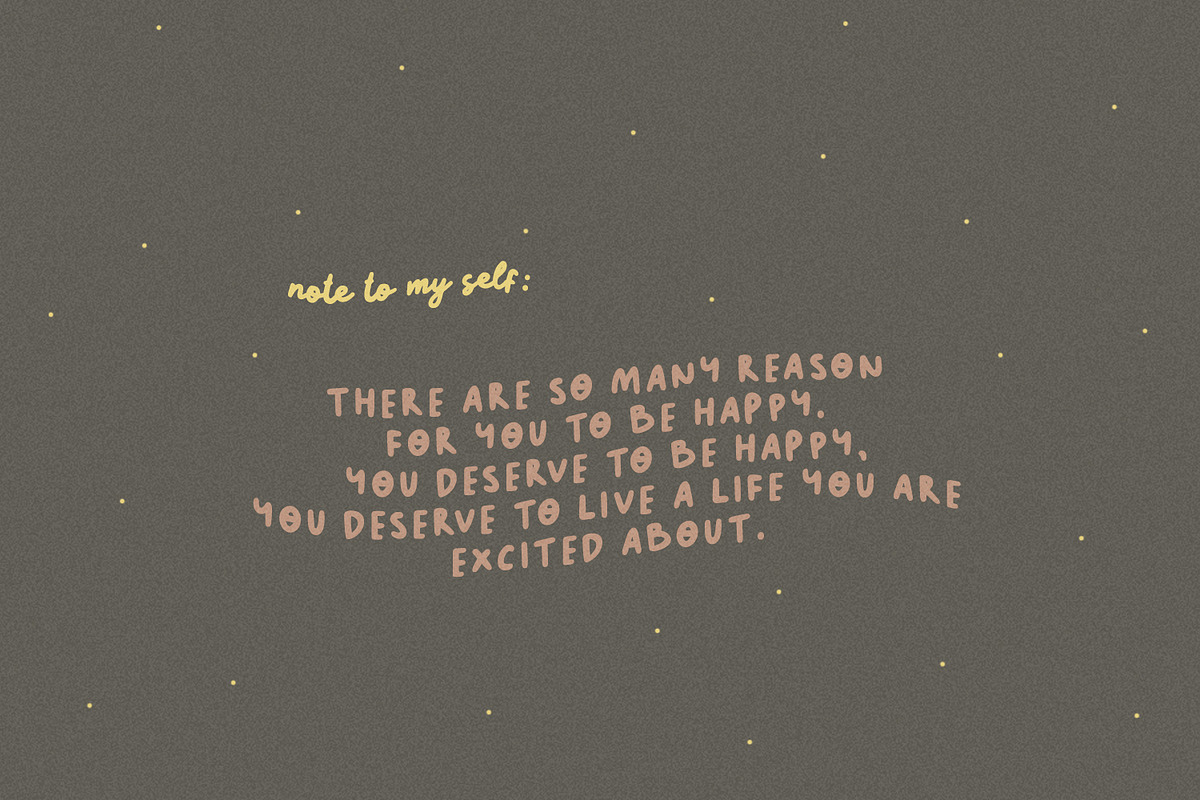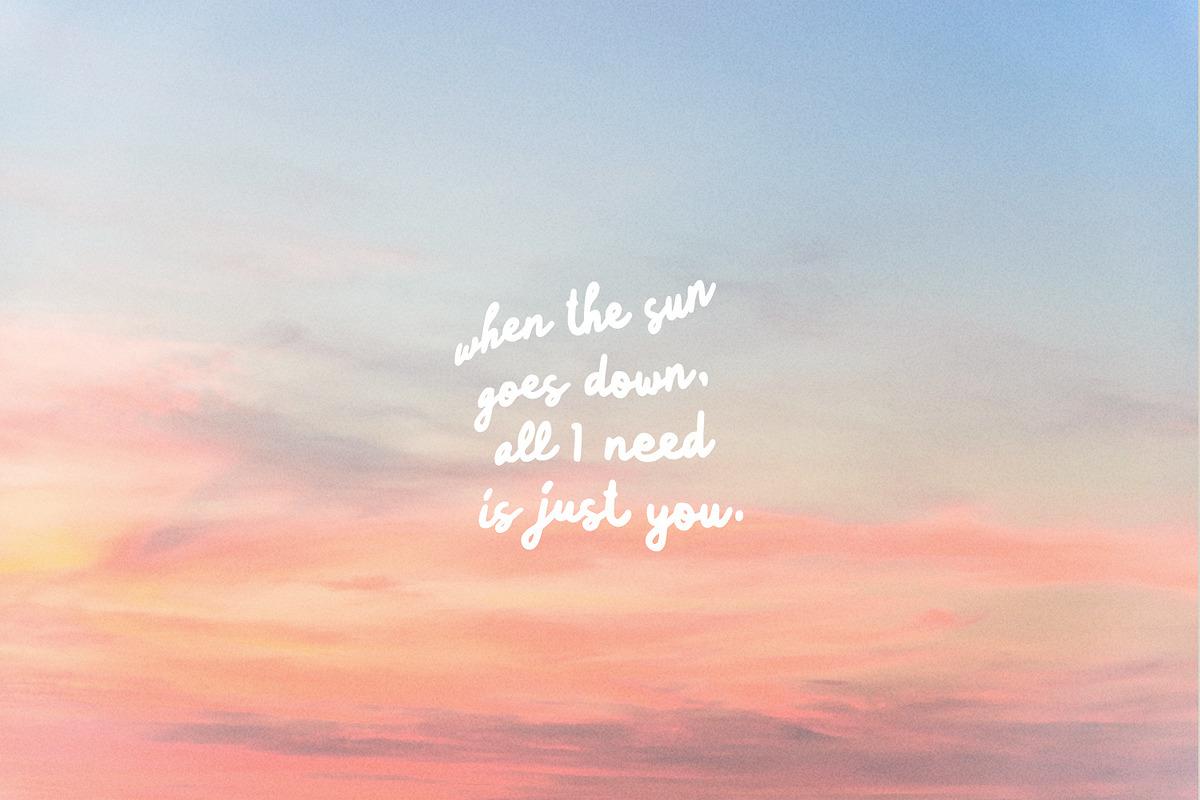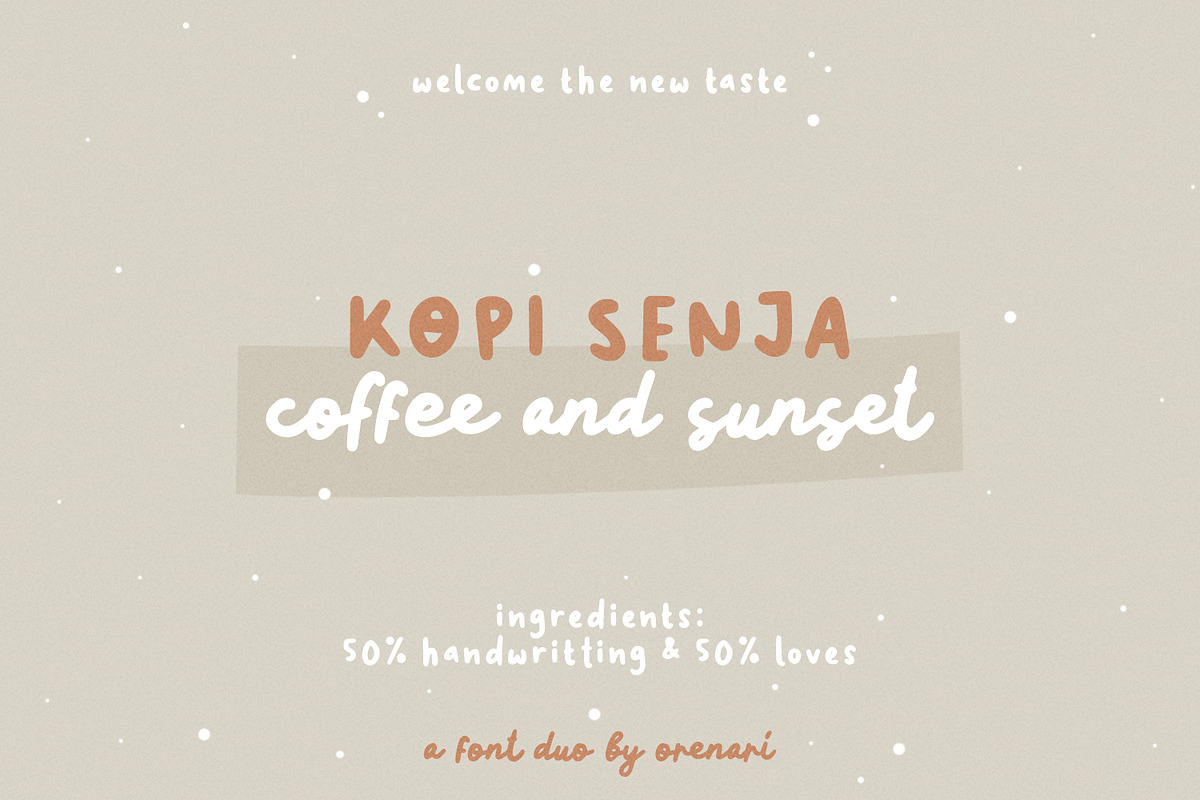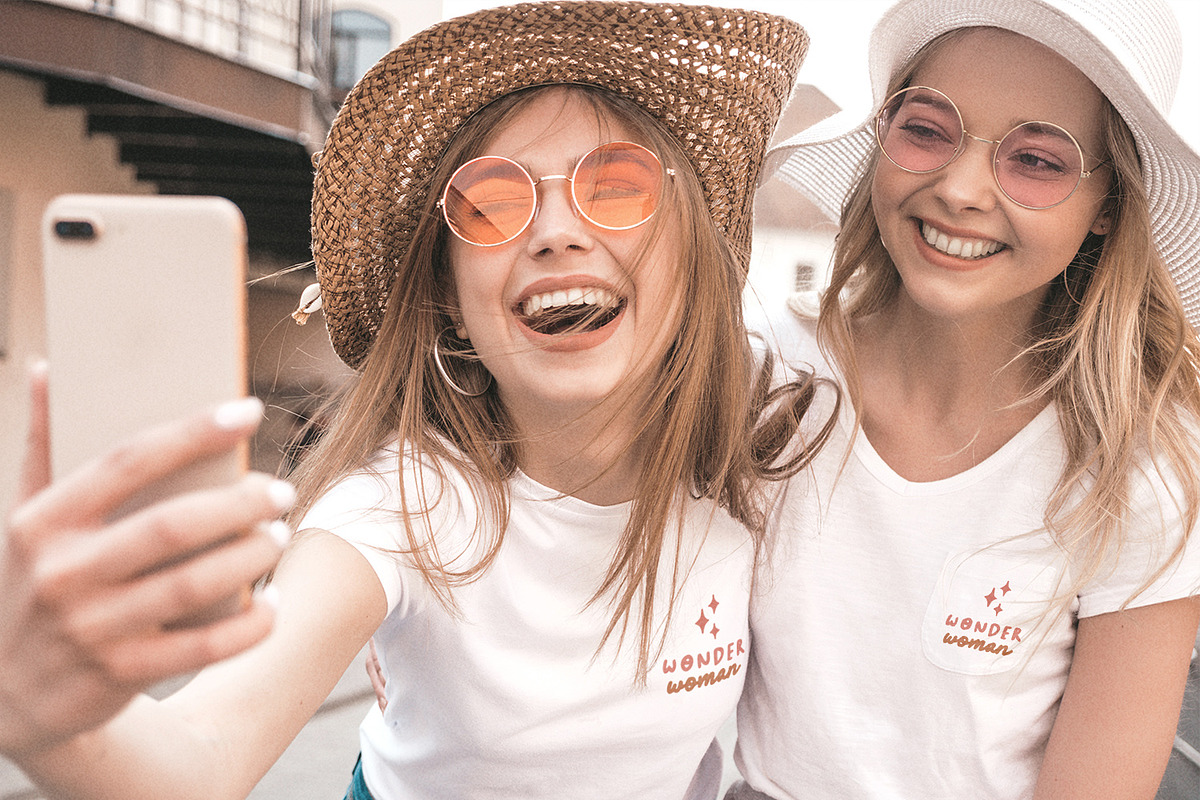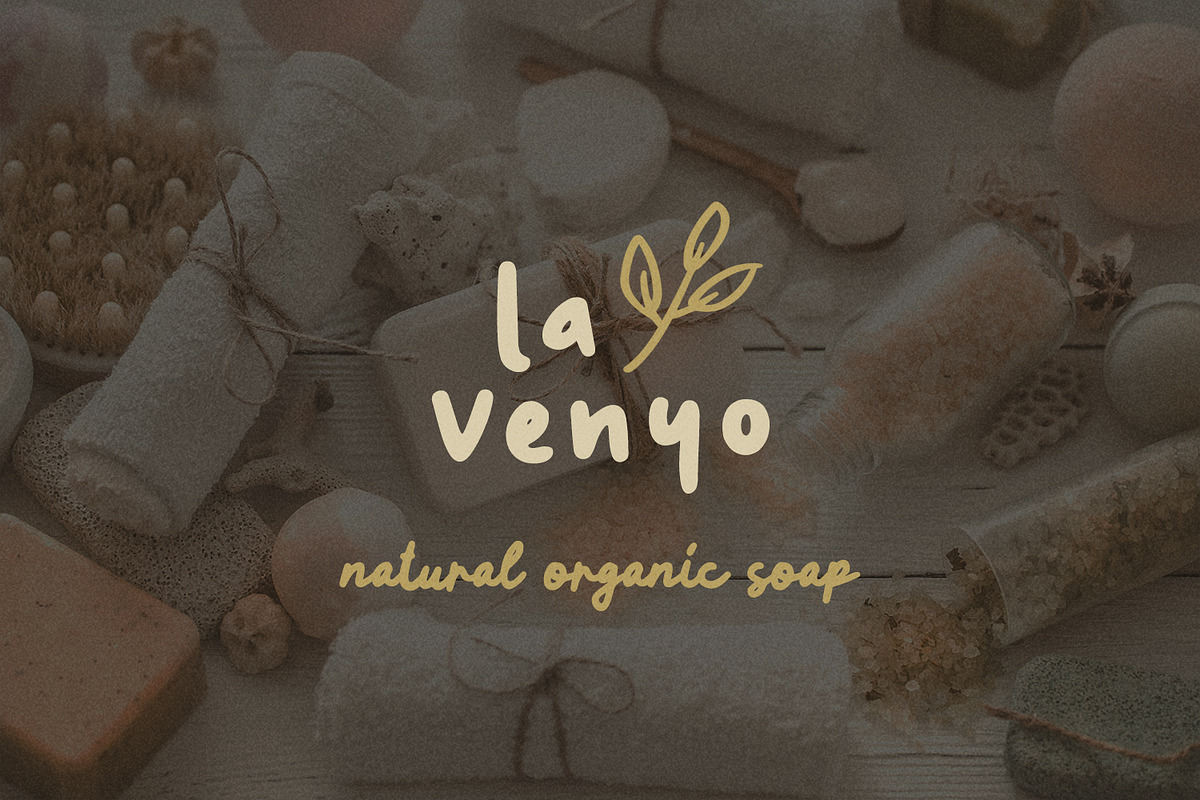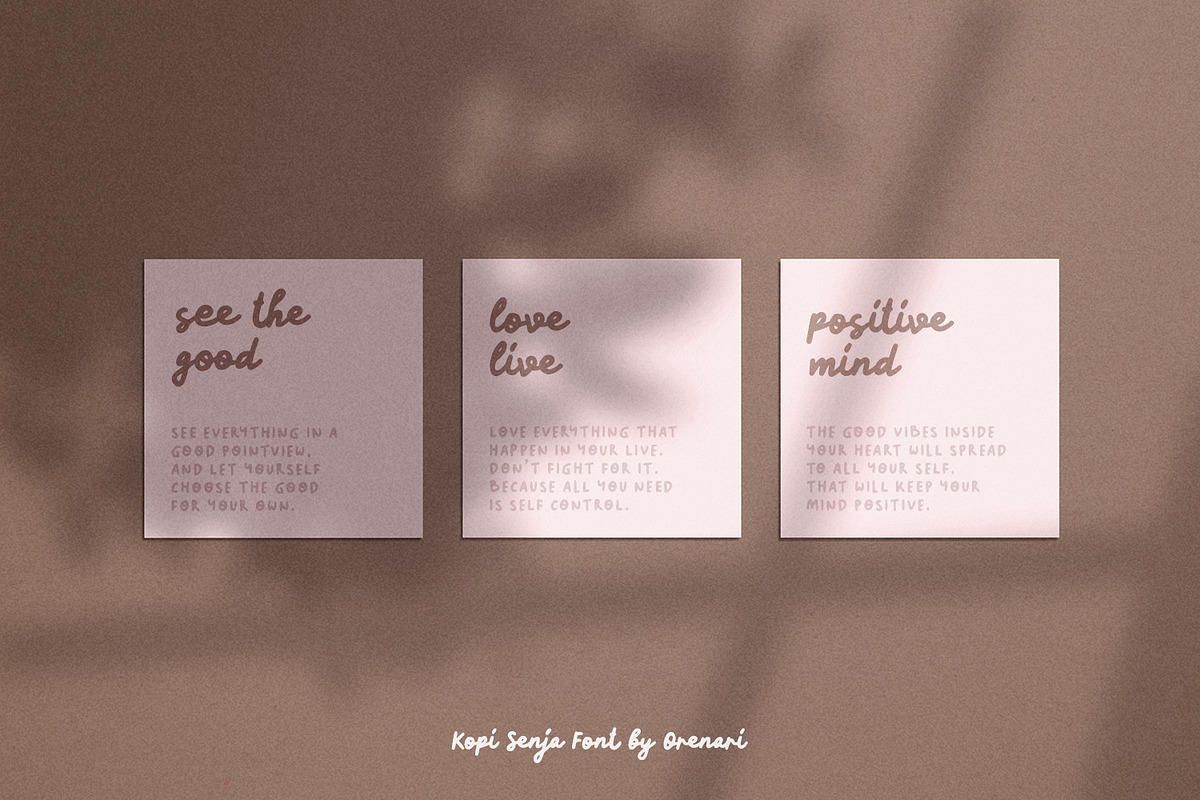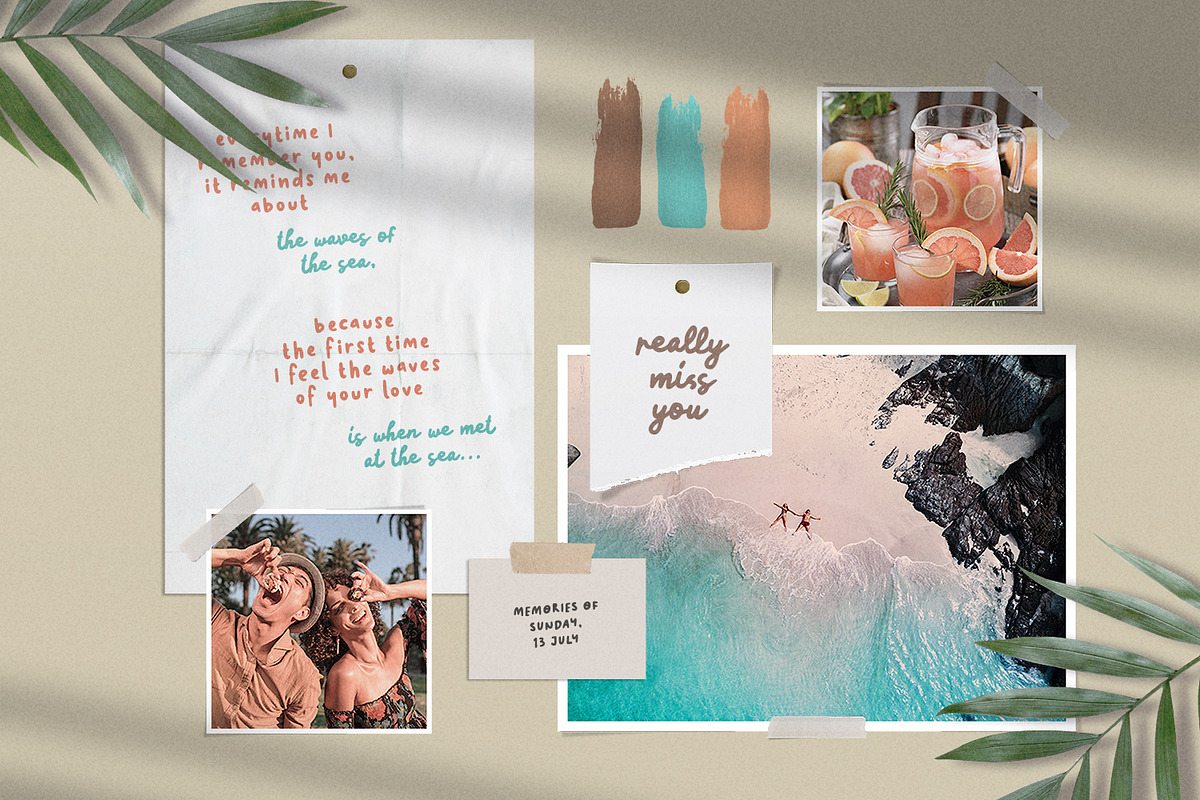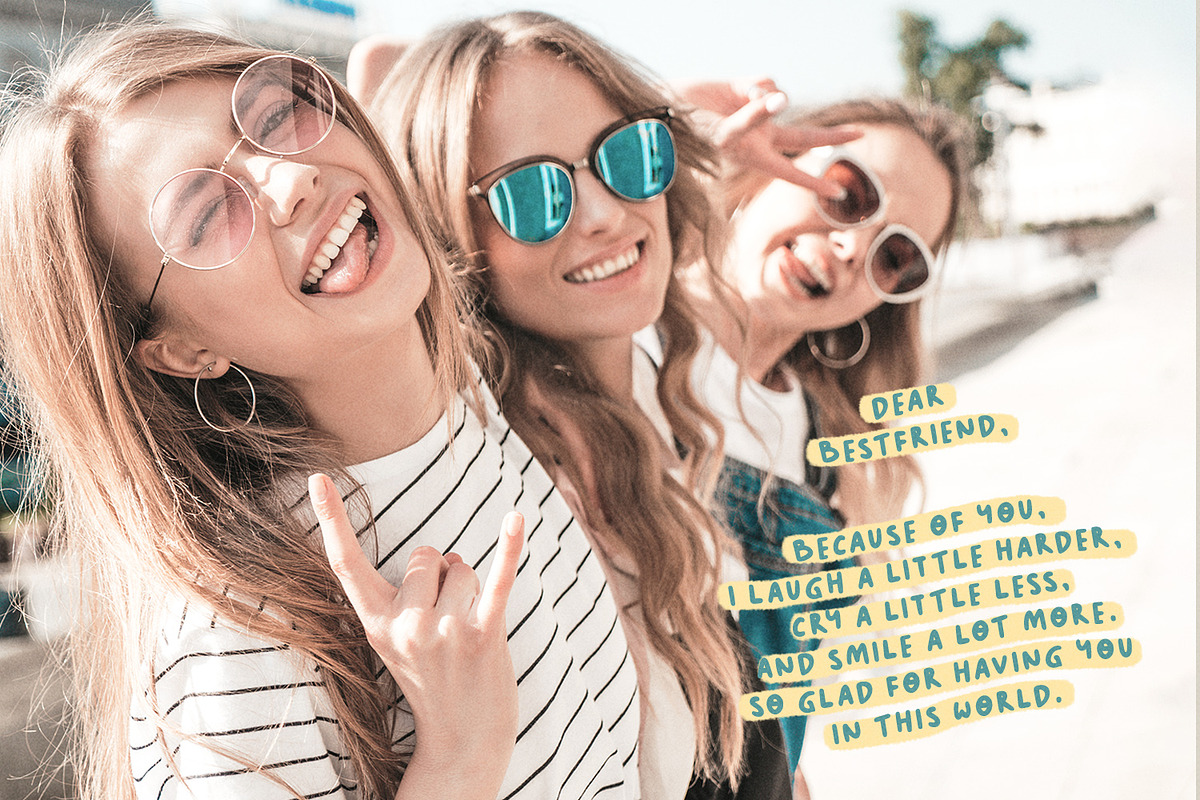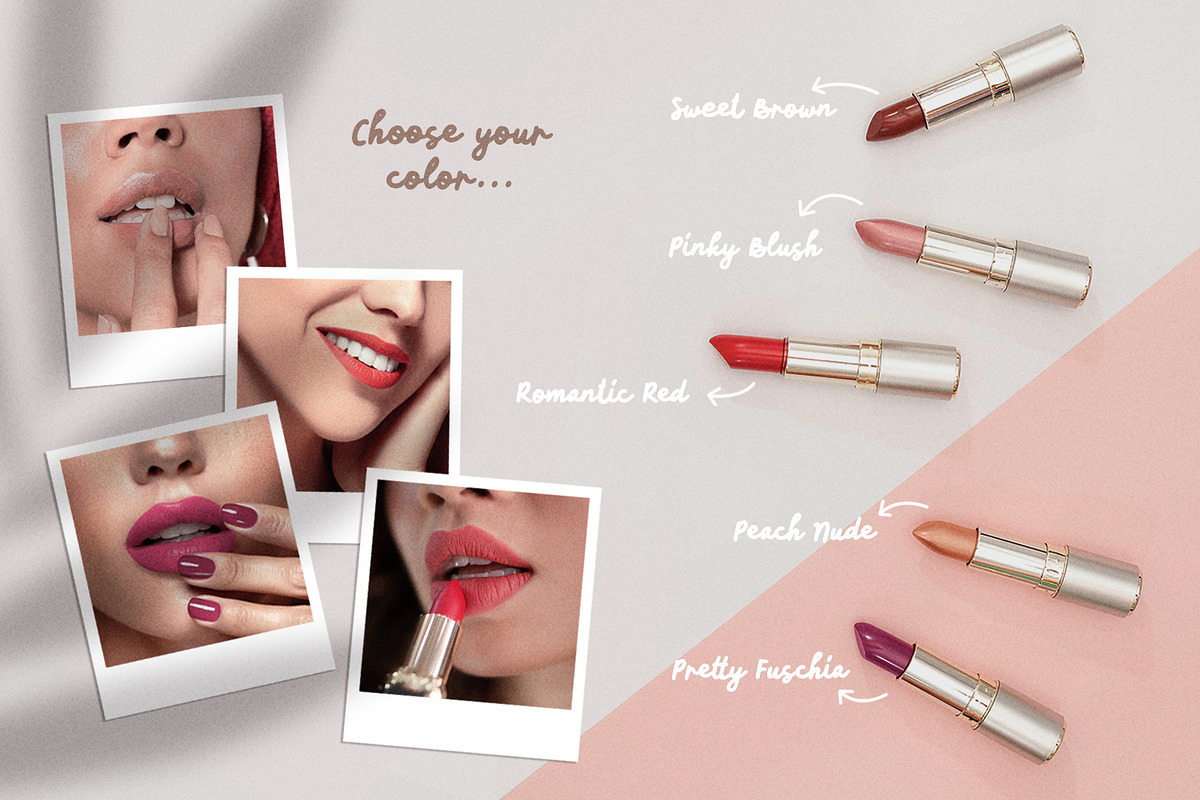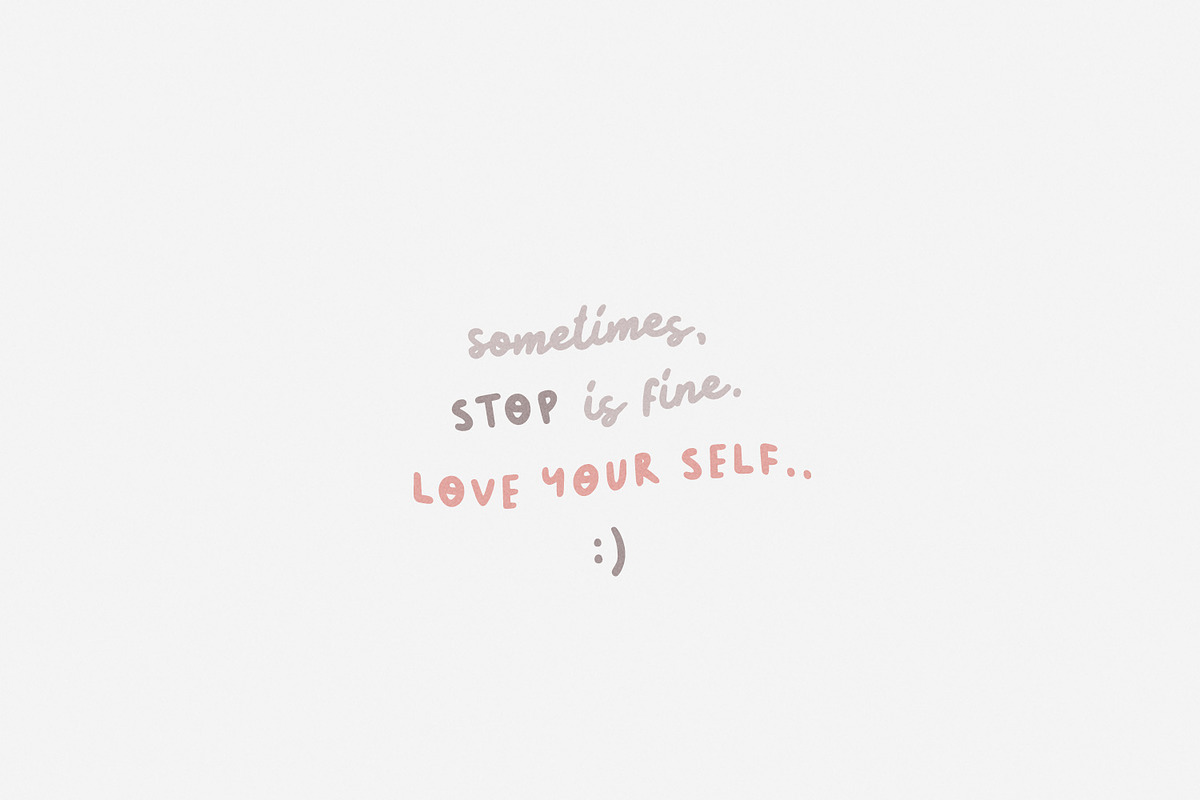
Kopi Senja Font Duo
Kopi means coffee, and senja means sunset. The inspiration of Kopi Senja Font Duo is indie music fans. Every curves of the character is originaly drawn by my hand with heart. Kopi Senja has sans and script version, mix and match it with your own imagination. Be creative and make your project stand out with Kopi Senja.